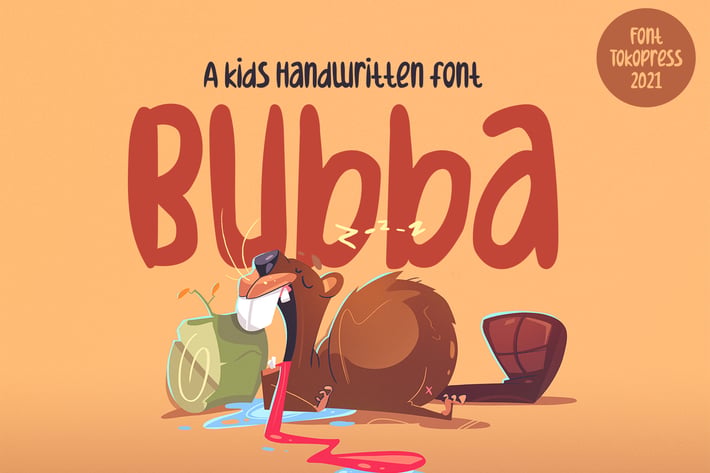
Bubba - Kids font
Bubba - Kids Font
Bubba is a bouncy handwritten kids font with playful curves, soft edges, and a lively rhythm — ideal for colorful children’s books, birthday invites, or playful product packaging. With chunky, rounded letterforms and a casual, friendly attitude, Bubba brings a giggle to every line of text. The letters dance with a fun, uneven baseline, capturing the joyful spontaneity of a child’s drawing while keeping everything clean and readable.
Designed to stand out in kid-centered visuals, Bubba combines expressiveness with structure. It’s perfect for any design that wants to speak in a lighthearted, energetic tone — especially in creative markets like crafts, classroom posters, or daycare branding.
Whether you're designing a storybook title, a poster for a preschool event, or a kids apparel label, Bubba delivers instant charm and childlike wonder. Its handwritten personality invites smiles and builds emotional connection — making it a go-to choice for illustrators, authors, and product designers working in children’s markets. It’s also ideal for toy packaging, birthday greeting cards, or bakery signage that needs a fun, sweet, and cheerful voice.
Key Features :
✦ What Makes Bubba Stand Out?
- Playful bouncy baseline and rounded stroke endings
- Handwritten style with clean readability
- Full of personality, perfect for kids’ media
✦ Ideal For :
- Kids books & story titles
- Party invitations & birthday cards
- Craft projects & printables
- YouTube thumbnails & educational apps
- Daycare, preschool, or toy packaging branding